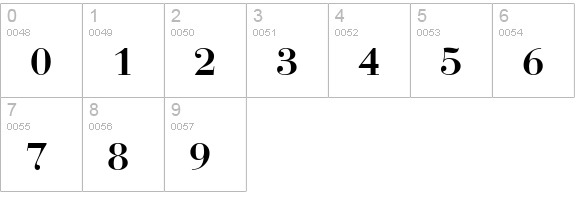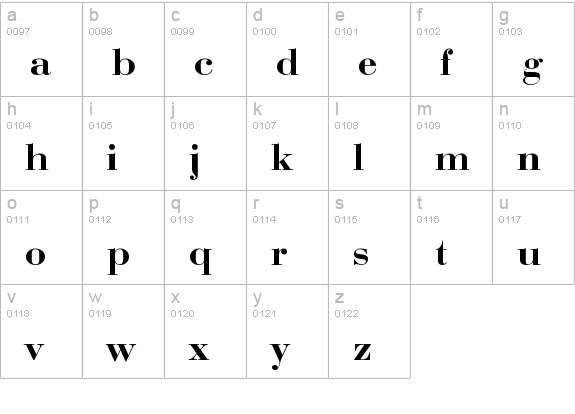
Rothni-Bold is a strong, high-contrast variant in the Rothni typeface family \xE2\x80\x94 well suited to headlines, attention-grabbing titles, and strong calls-to-action.
Rothni-Bold is a modern and stylish typeface that exudes confidence and sophistication. With its bold lines and sleek curves, this font is perfect for making a statement in your design projects. Whether you're creating a striking poster, eye-catching logo, or impactful branding materials, Rothni-Bold is sure to leave a lasting impression. Best of all, Rothni-Bold is available for free download at FontsMarket.com. This means you can easily access this stunning font and use it in your projects without any cost. Don't miss out on the opportunity to enhance your designs with the elegance and versatility of Rothni-Bold. Download it today and elevate your creative work to the next level!